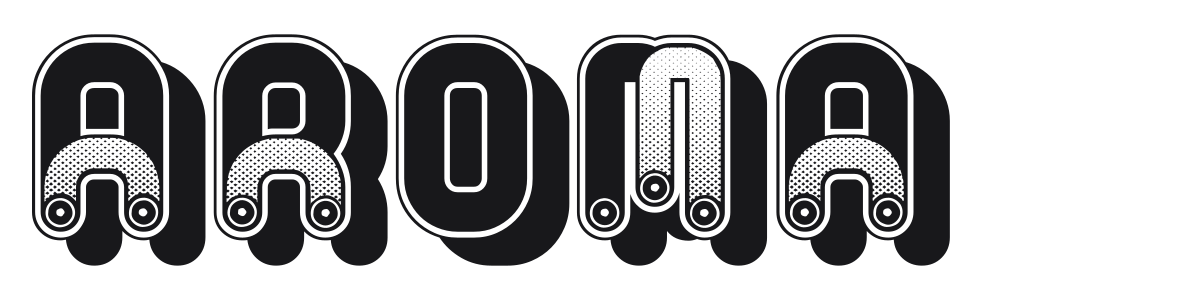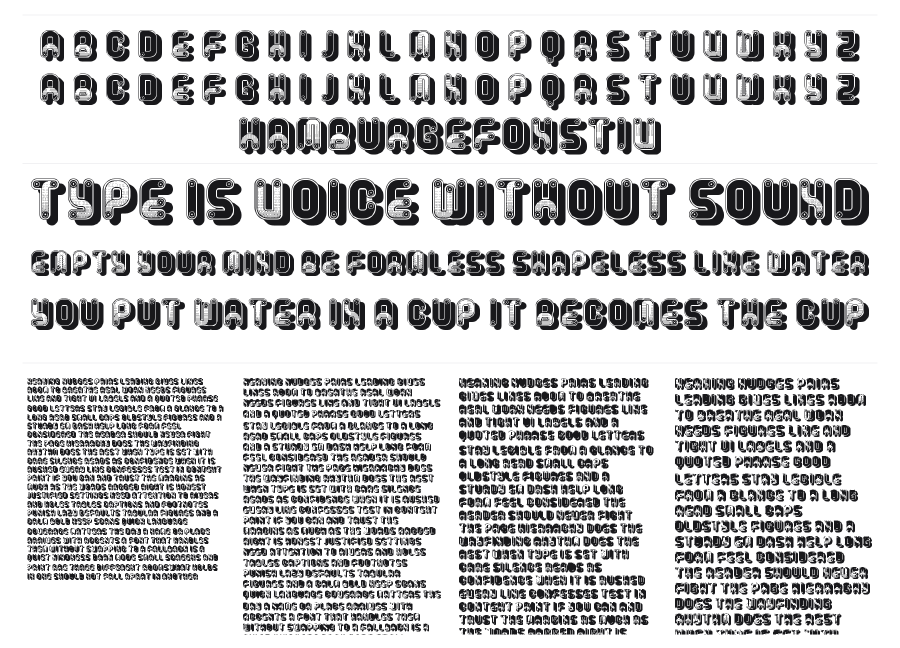
Aroma
Aroma is a heavy rounded display face built from thick tubular strokes loaded with concentric inline striping and small rivet details at the joints. The result sits somewhere between a 1970s groovy poster font and a cartoon mechanical construction. It brings maximum visual noise in the best possible way.